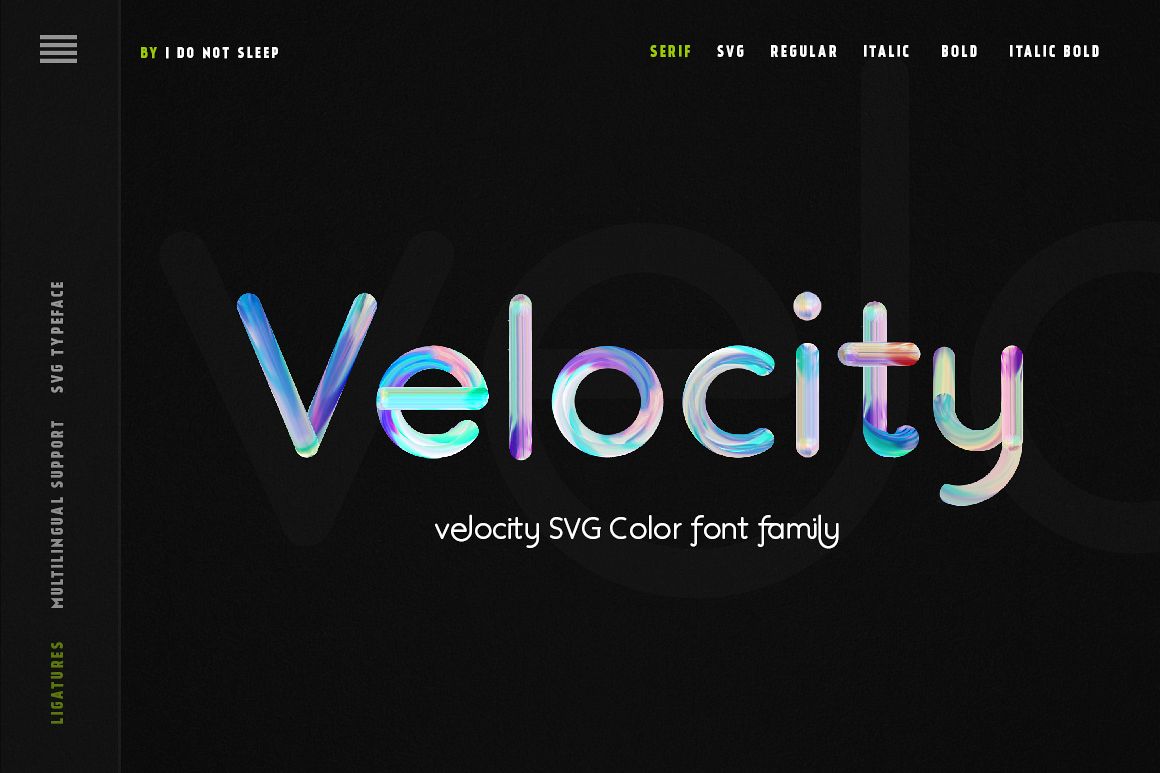
Velocity SVG Font
Velocity has a unique font, it might look like a serif font in general, but when using OTF files and activating ligature feature you will see uniquely prominent of velocity. That's the advantage of Velocity fonts.
And how about Velocity SVG? Yes, what you see in the preview images is exactly how the font types, with nothing added afterward.
The uniqueness of Velocity is ideal for your great projects like logos, branding, poster, banner, website, invitation card, name card, for typing headlines in a magazine, headline, restaurant, menu, product design, clothes, your blog, or any display use.